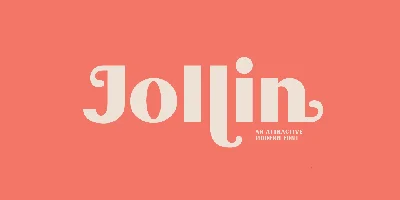
Jollin Font
Jollin Font is perfect for cheerful branding, upbeat marketing campaigns, happy greeting cards, positive lifestyle blogs, energetic youth programs, vibrant party invitations, joyful social media graphics, optimistic business communications, and spirited creative projects. This lively typeface brings infectious happiness and positive energy to projects requiring uplifting typography with genuine cheerfulness and motivational appeal.
What makes Jollin Font exciting is its infectious joy that radiates boundless positivity and authentic happiness with remarkable energy and uplifting spirit that instantly brightens any communication and spreads good vibes. The font features bouncy letterforms with dynamic movement and cheerful proportions that reflect the natural exuberance of celebration and positive thinking. Its optimistic personality and energetic character make it irresistible for brands seeking typography that communicates genuine happiness while creating memorable experiences through joyful visual storytelling and motivational design language.
The Jollin Font family includes energetic weights and joyful styles: Light, Regular, Medium, Bold, and playful variations with happy alternates and celebratory symbols. Each weight maintains the font's cheerful character while offering designers creative flexibility for positive branding and uplifting design applications requiring authentic happiness and motivational visual communication.
Whether you're designing for wellness brands or motivational services, Jollin Font provides designers with an uplifting, positivity-focused typeface solution. The font's joyful aesthetics and energetic styling make it ideal for wellness centers, motivational speakers, celebration planners, and positive lifestyle brands. Its spirited presence ensures your message communicates genuine happiness and positive energy while maintaining excellent cheerful readability. The comprehensive character set includes joyful symbols and celebration decorations, making it perfect for creating inspiring headlines and brand identities that celebrate positivity and establish meaningful connections with audiences seeking authentic happiness and uplifting experiences that brighten their day.